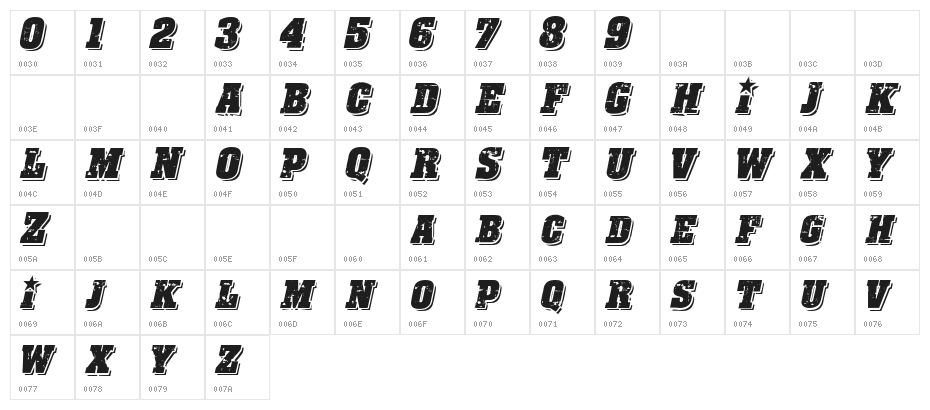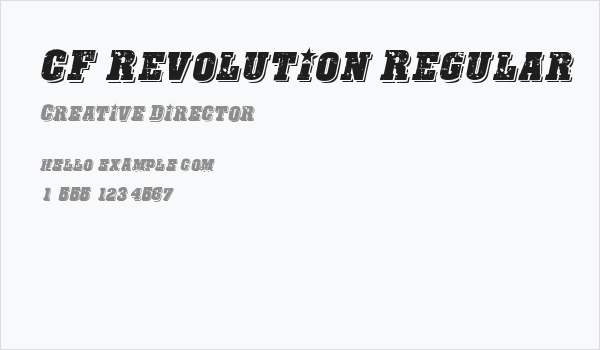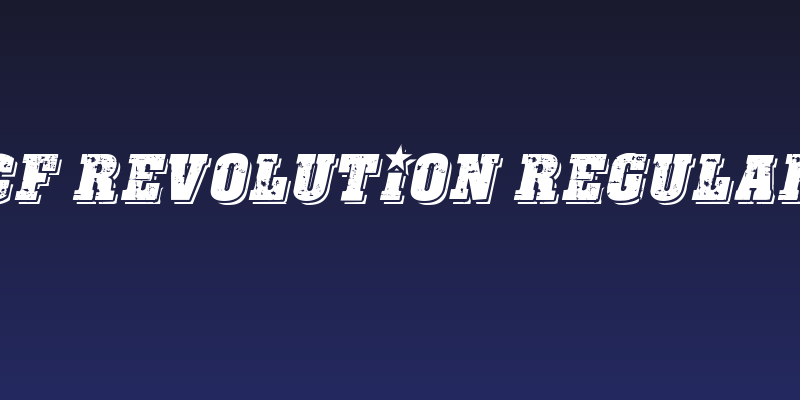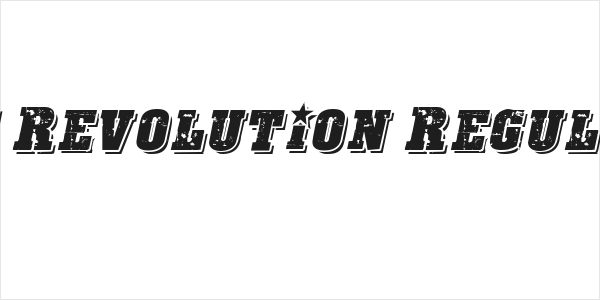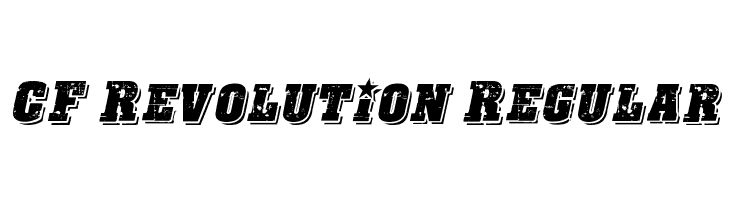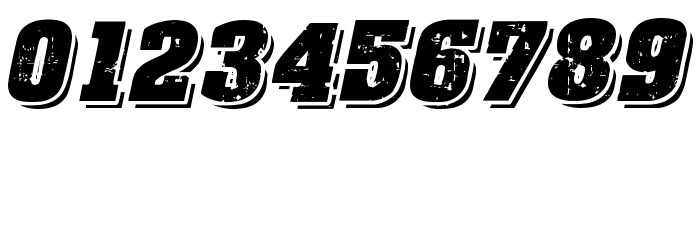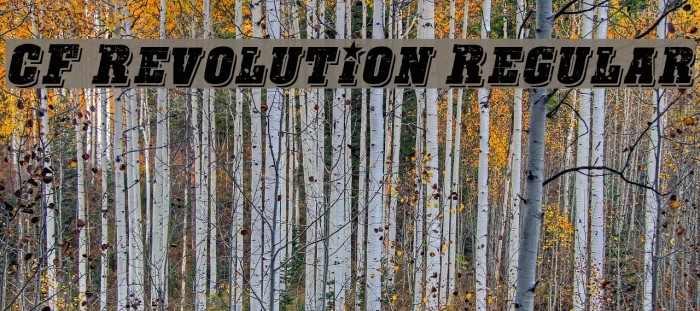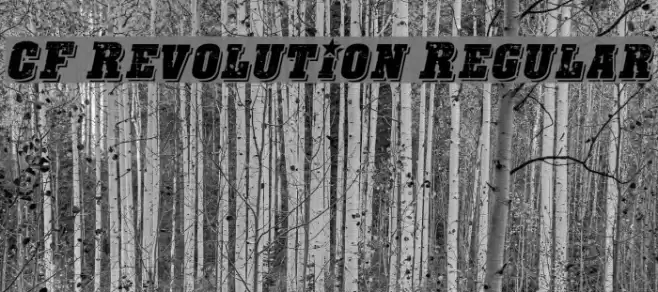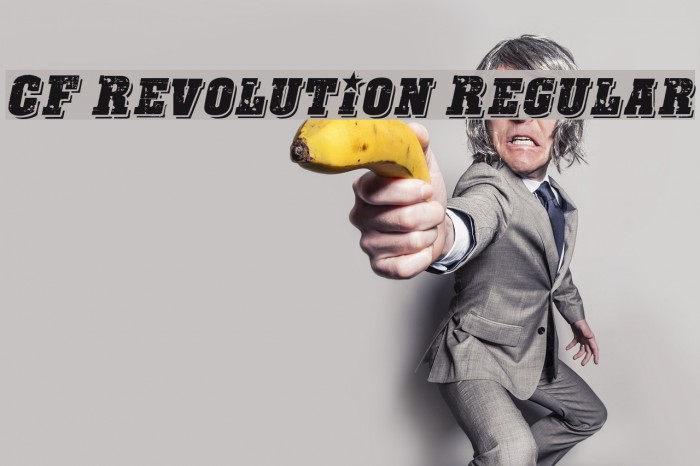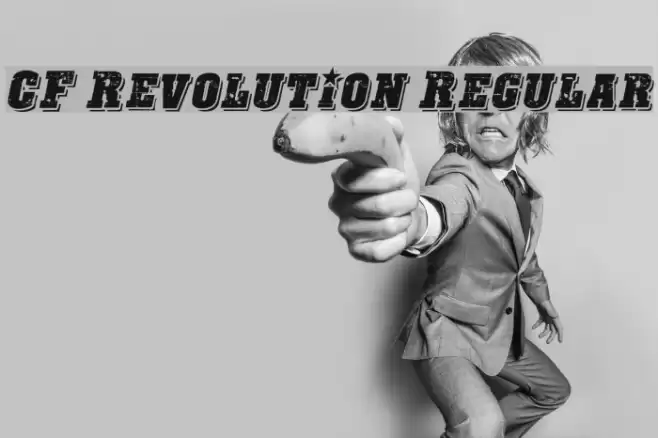
CF Revolution Regular Font
✎ Distorted Eroded
| Projetos propostos | Ideal for posters, album covers, branding for edgy products, or any design needing a strong, vintage aesthetic. |